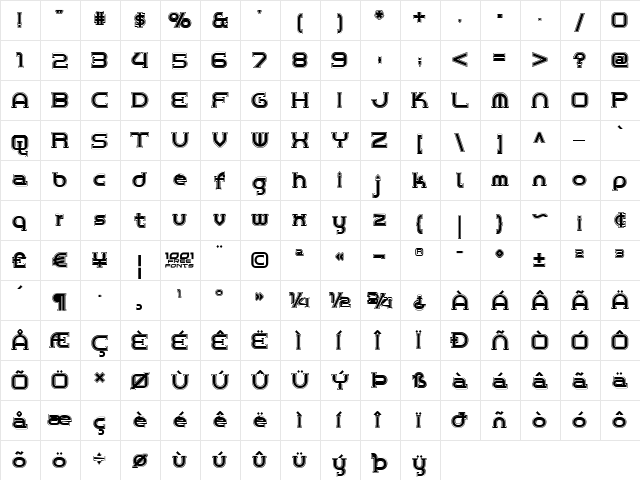
Chrome Yellow Inline NF Regular
Design Context for Chrome Yellow Inline NF Typeface
Chrome Yellow Inline NF is built around its visual character rather than neutral utility — its distinctive forms are designed to make an impression at display sizes.
Font Pairing: Pair with a clean neutral sans-serif for body copy to let Chrome Yellow Inline NF's character lead without overwhelming the composition.
Pro Tip: Use Chrome Yellow Inline NF exclusively at display sizes — it was designed to be seen, not read at length. Let a neutral companion handle body copy.